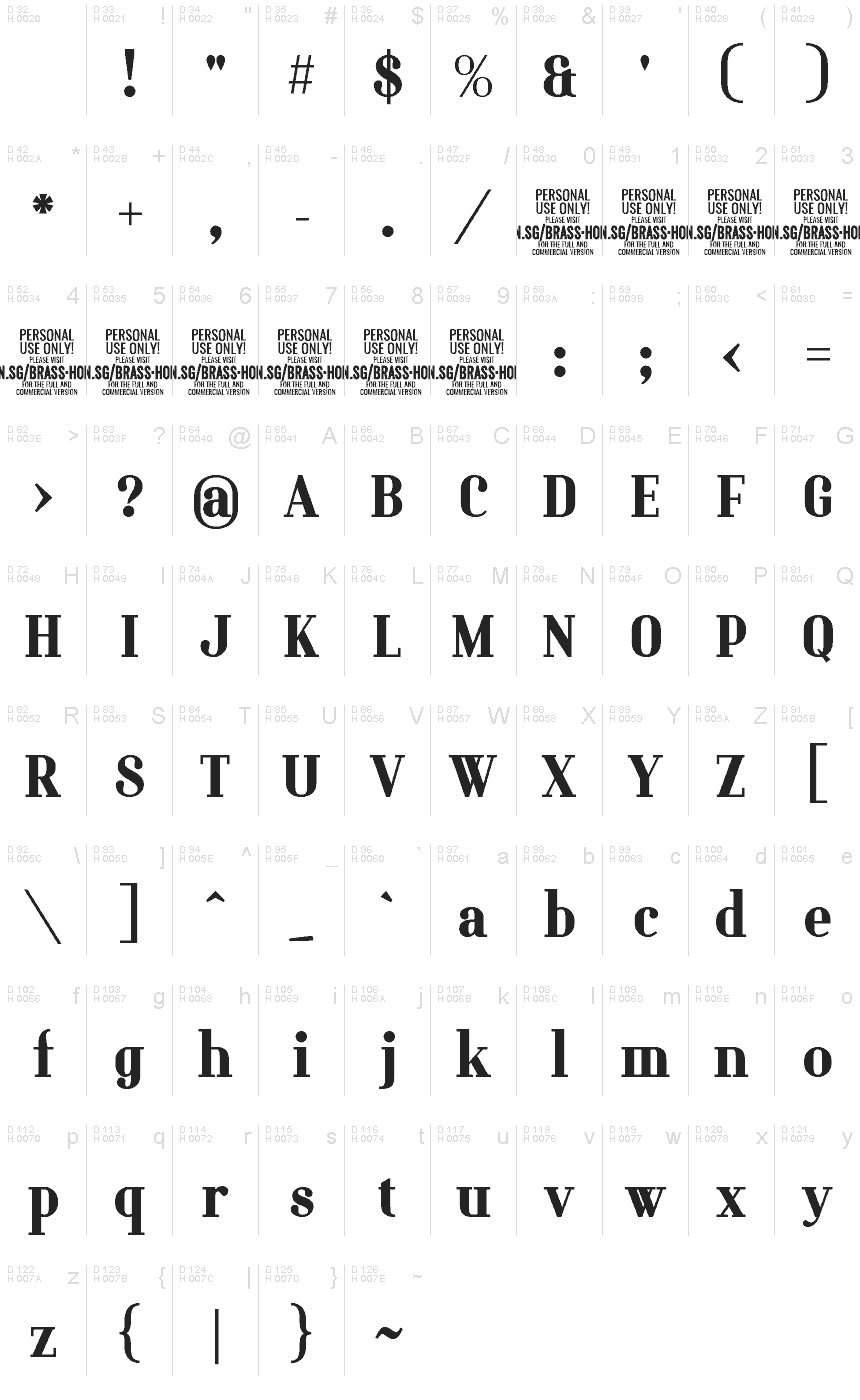
Brass Hopper Body PERSONAL Black
Brass Hopper Body Black font was designed by Mans Greback with a mix of modern and traditional details which are best observed on its extended, flared out tails. The serif font is characterized with strong but gentle letterforms that balance one another when put together. It also has a hint of geometry and elegance, making it the perfect choice for adding subtle artistic vibes to formal writing categories.
Newspapers, magazines, official papers such as constitutions or legal documents can be effectively typed in this free serif font. BP labels, movie descriptions and credits, technical documents can benefit from this beautiful typeface. Any offline or online content meant for quick reading sessions is covered too!